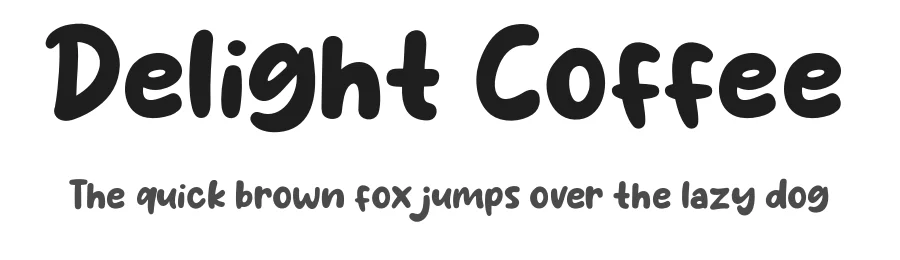
About Sunbreak Font
Sunbreak is a script & handwritten font designed by olivetype. It includes 66 glyphs, a regular weight, TTF (TrueType) format, and 89 languages. Sunbreak is free to download; check the license details on this page before commercial use. Script & handwritten fonts like Sunbreak work best for wedding invitations, greeting cards, signatures, and elegant branding.
Sunbreak Font is a script font that shines as a display or heading face. Pair it with a clean sans-serif or serif font for body text β the contrast creates a clear hierarchy while the two styles stay balanced and easy to read.
Sunbreak Font
by olivetype